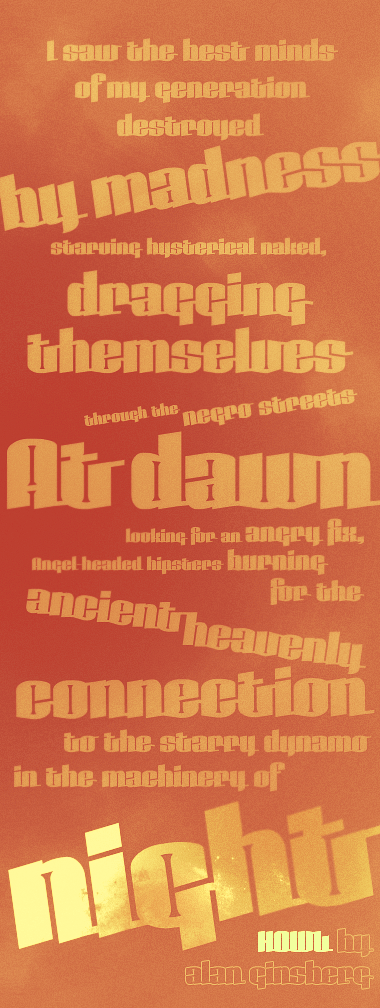
This began as a clone of the original djangogh, reinventing it as an ultra-bold, broad-nibbed gothic display sans. The Script comp provided me impetus to flesh it out further in the direction of an ultra-weight connected script face.
The connectors mimic the angle of inclination of the fat pen that scribes these glyphs, giving most of them a slight uptick. This consistent angle (and the high contrast) lands it in the same family of script as Shasta’s classic High Voltage, yet the two remain distinct. Djangogh Unpenned brings a sexy corpulence, curvaceousness paired with kinky inktraps set on an undulating baseline (and surely it is less electric than Shasta’s epic work).
Connection became a major theme upon which to reconsider all the characters. I fine tuned and revised the outer curves and placement of diagonals to ensure dynamic, smooth, and consistent linkages and some lovely auto-ligatures for certain letter pairings.
I cannot wrap my mind around your 260+ custom-made bricks, your uncanny inktraps, and the smart use of the diagonals in @, ©, and ® that work around the filters. Undoubtedly the most clever font on Fontstruct in my opinion.
Awesome, this is just, best font ever! Was this REALLY made on FS, Will? Or did you make this in a vector app and hack into FS and put it in. GIGA-MEGA-HEXA-TERA-AWESOMENESS PUSHED TO THE MAXIMUM LEVEL!!!!!!!!!!!!!!!!!!!!!!
Oh, and those bullets :D
What a powerful font! The connectors really weave this together and are a natural follow on from your earlier project, which I hadn't looked at in detail before.
Connected genius and Ginsberg! 10/10++++++++
You don't have your reputation for nothing, really. There are so many details here that I learn from... Awesome.
I love when a new approach I take to an old problem thrills and inspires you guys. The ability to communicate ideas without words (but with glyphs!), to transmit ideas within the constructions themselves – this is my greatest joy in fontstructing. I realize I want to speak less about, and to speak more with. To say it with the shapes. To create designs so simple yet layered, so recognizable – even obvious – yet also mind-bending and unknown. So that you can’t help but press the clone button. Not pictures worth thousands of words, but modular systems worthy of dozens of fonts.
Yhis is a great design a realy good connection